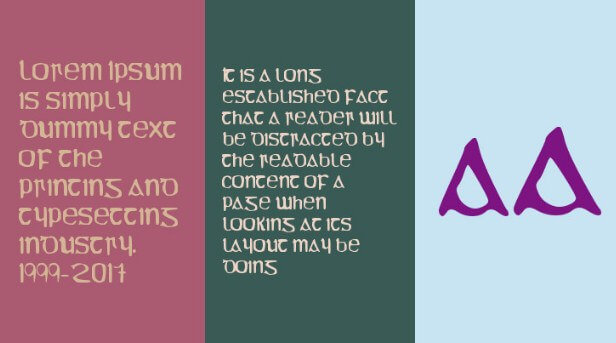
YY Uncial Most Irish font sparkles like a gem in the world of typography. Perfect for jazzing up websites, blogs, or even wedding invites! Picture this: every word you type dances off the page, charming everyone who sees it.
YY Uncial Most Irish Font